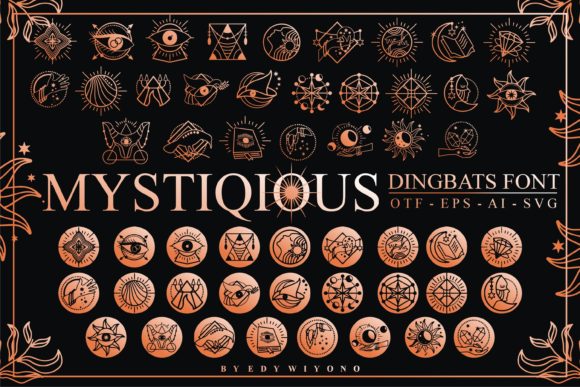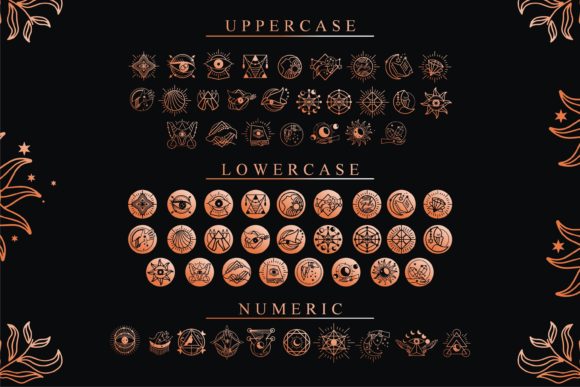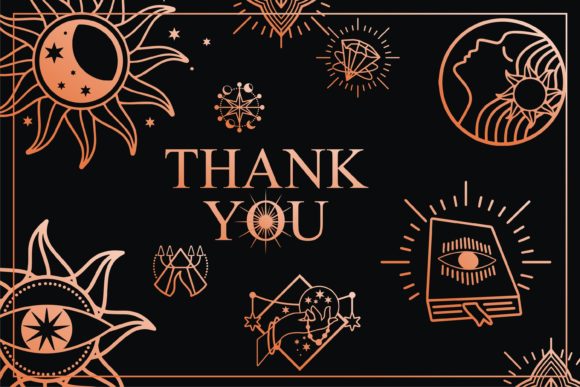
Mystiqious Dingbats Font
About Mystiqious Dingbats Font
Mystiqious Dingbats font is indeed a cool, creative, and useful dingbats font that can add a touch of uniqueness and creativity to your designs. With its wide range of symbols and glyphs, this font has the potential to enhance any creation and elevate it to a new level.
The Mystiqious Dingbats font offers a diverse collection of symbols, icons, and illustrations that can be used in various contexts and projects. Whether you’re designing a logo, creating digital artwork, or crafting a unique piece, this font provides you with a wealth of options to choose from.
The versatility of Mystiqious Dingbats font allows it to be used across different themes and topics. Whether you’re working on a fantasy-themed project, a mystical design, or even something more abstract, this font can be the perfect addition to your font library. Its creative and unique symbols can help you convey your message or add an extra layer of visual interest to your designs.
One of the advantages of using Mystiqious Dingbats font is its ability to spark creativity and inspire new ideas. By exploring the various symbols and glyphs available in this font, you can discover unique combinations and compositions that can make your designs stand out.
In conclusion, Mystiqious Dingbats font is a valuable asset for any designer or creative individual looking to add a touch of creativity and uniqueness to their projects. With its wide range of symbols and glyphs, this font provides endless possibilities for enhancing your designs and elevating them to a new level. Explore the potential of Mystiqious Dingbats font and let your creativity flourish.